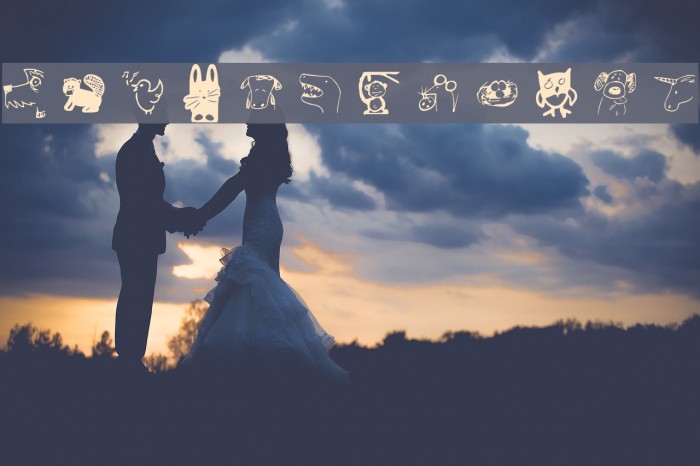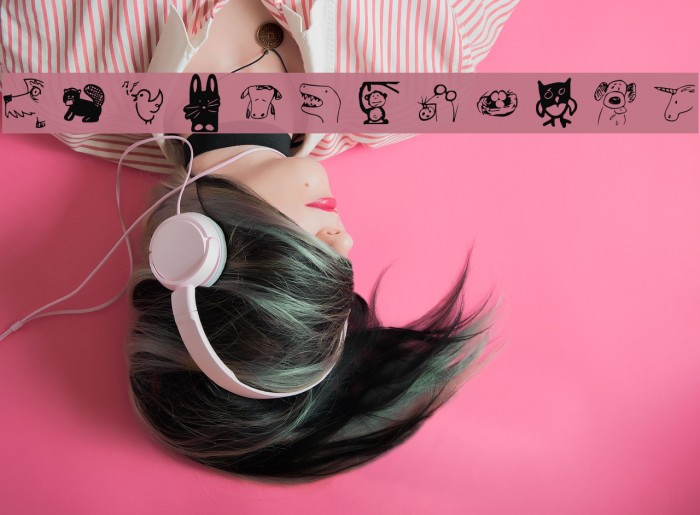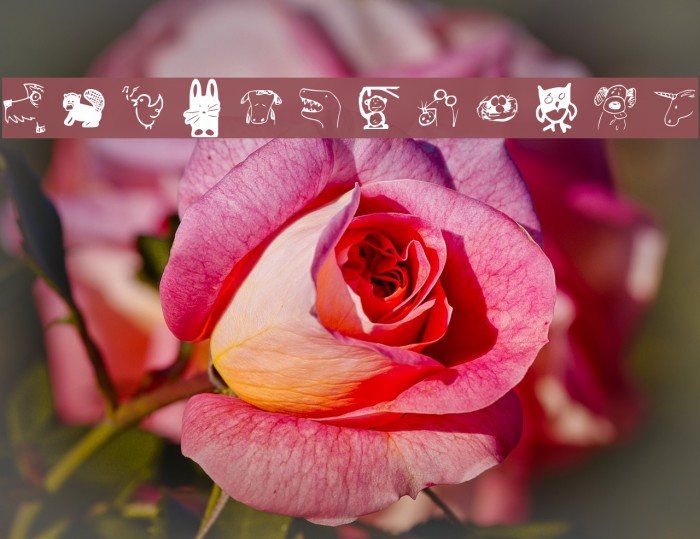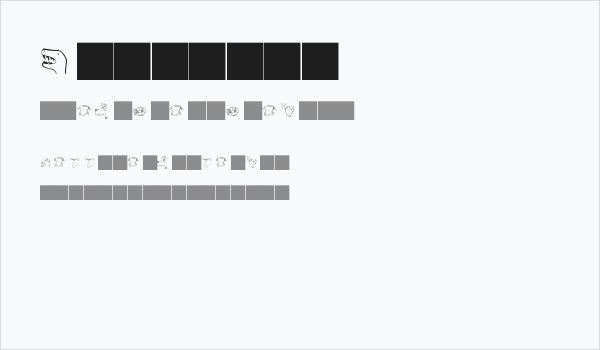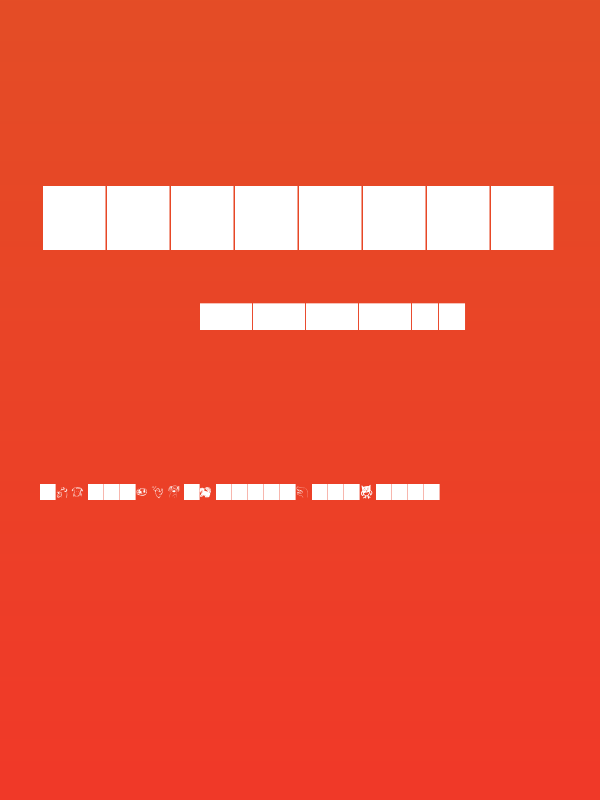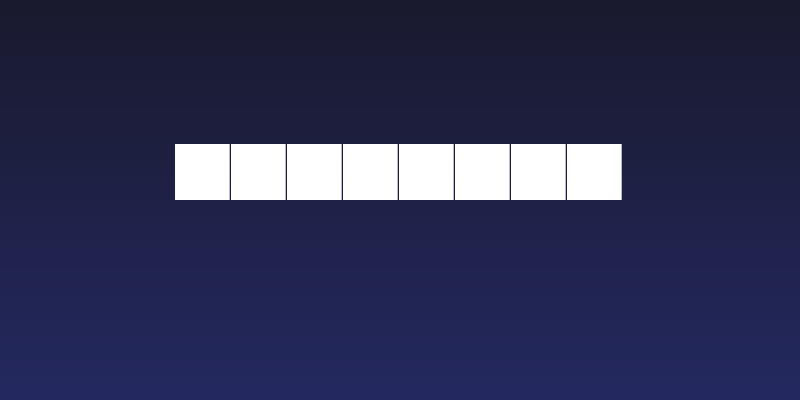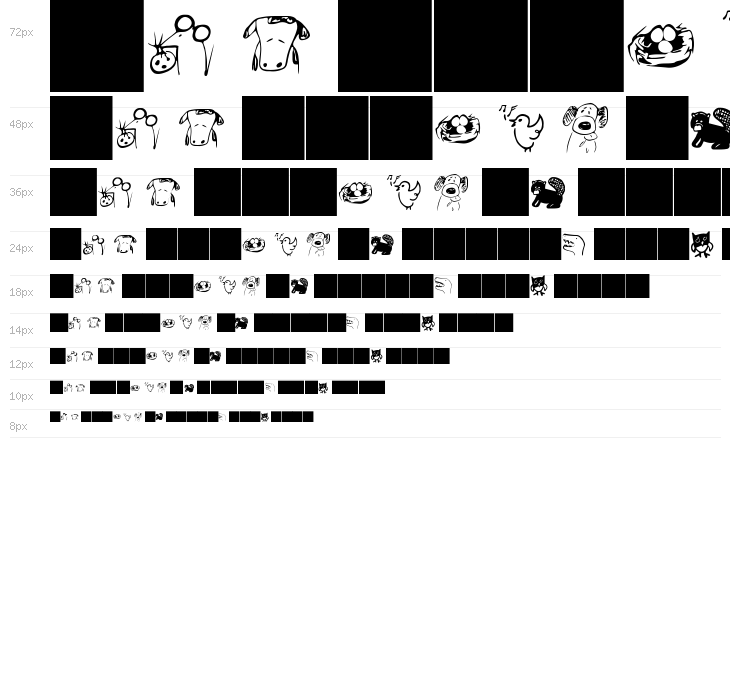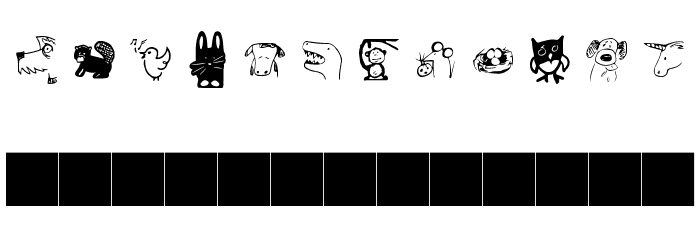
font3046 Font
font3046 Description
This font includes 15 characters. Click on any character to see details.
| Overall Style | Playful, Whimsical, Hand-drawn |
| Use Case | Icons, Decorative elements, Themed illustrations |
| Proposed Projects | Children's books, educational materials, greeting cards, playful branding, stickers, and decorative elements. |